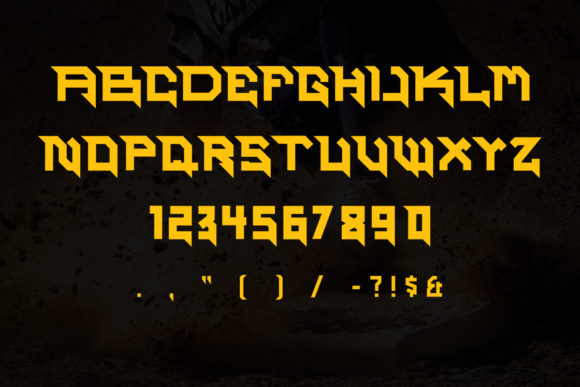
Introduction to Serkel Font
Have you ever been working on a creative project, staring at a blank page, and suddenly, the perfect font pops into your mind? That’s exactly what happened to me when I stumbled upon the Serkel Font. Its bold, thick letters instantly captured my attention, and I knew I had to dive deeper.
The Serkel Font is a design resource that can elevate any project from good to great. With its high-quality, transparent background, it’s perfect for adding a touch of sophistication to your designs. Whether you’re working on a logo, poster, or social media graphics, this font is sure to make your work stand out. And the best part? It’s available for free download, making it a valuable addition to any designer’s toolkit.
As a designer, you know how crucial it is to have the right tools at your disposal. The Serkel Font is one of those game-changing resources that can help you take your creative projects to the next level. In this article, we’ll explore the world of Serkel Font and discover why it’s become a go-to choice for designers everywhere.
Key Features of Serkel Font
- High-quality design resource ideal for creative projects, with a unique aesthetic that can add a touch of elegance to any design.
- Features a transparent background, making it easy to layer over other design elements and create a cohesive visual identity.
- Designed to be highly versatile, with a wide range of applications in graphic design, digital art, and more.
Honest Review: Serkel Font
As a designer, I’m always on the lookout for high-quality design resources to elevate my creative projects. Recently, I came across the Serkel Font, and I’m excited to share my thoughts on this beautiful font.
What works well: ✨ The Serkel Font has a sleek and modern aesthetic that’s perfect for contemporary design projects. Its clean lines and simple shapes make it an excellent choice for logos, headings, and body text. I appreciate that it’s available as a free download, making it an accessible design resource for designers of all levels.
What doesn’t: ⚠️ While the Serkel Font is a high-quality design resource, it does have some limitations. The font doesn’t have a transparent background, which may be a drawback for designers who need to work with background images or videos. Additionally, the font family is relatively small, with only a few weights and styles to choose from.
Overall impression: The Serkel Font is a great addition to any designer’s toolkit. Its high quality and modern aesthetic make it an excellent choice for a wide range of creative projects. While it may not be perfect, its limitations are minor and easily outweighed by its many benefits.
- Modern aesthetic
- Accessible for designers of all levels
Tips for Getting the Most Out of Serkel Font
To get the most out of the Serkel Font, use it with a transparent background to create a seamless design. You can also experiment with different font sizes and styles to add depth and visual interest to your project.
Common Use Cases for Serkel Font
The Serkel Font is perfect for a variety of creative projects, including branding, marketing materials, and social media graphics. Its high-quality design makes it an ideal choice for any project where a professional look is required.
What makes the Serkel Font a high-quality design resource?
The Serkel Font is a high-quality design resource due to its precise typography, clear legibility, and versatility. Its high-quality design makes it an excellent choice for a wide range of creative projects, from print materials to digital interfaces.